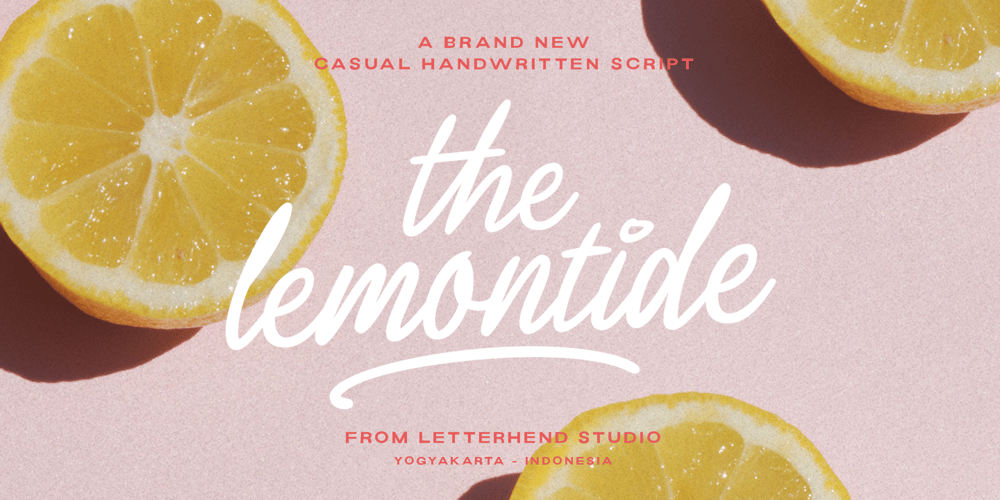
Lemontide Script Font Family was designed by Hendry Juanda and published by Letterhend. Lemontide Script contains 1 styles and family package options. Introducing Lemontide , a casual script hand-written font that will add a touch of catchy to your designs. This font has a charming vibes that makes it perfect for projects that require a friendly and approachable feel. The letters are slightly wider than usual, giving it a modern yet comfortable appearance.Features : Uppercase & lowercase Numbers and punctuation Alternates/Ligatures Multilingual PUA encoded